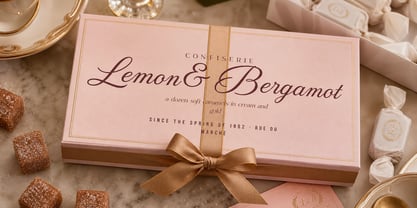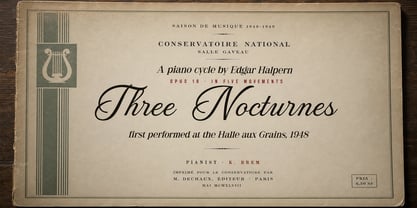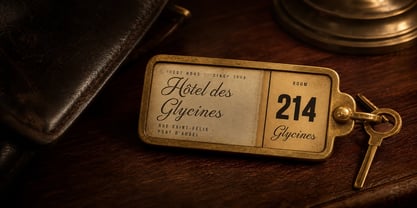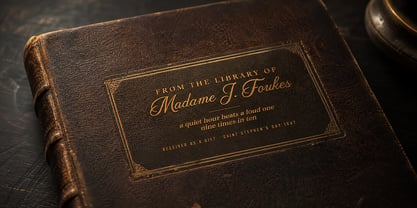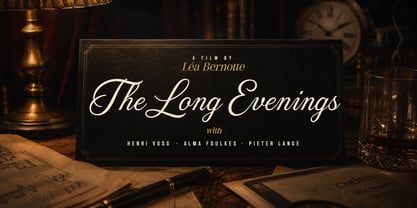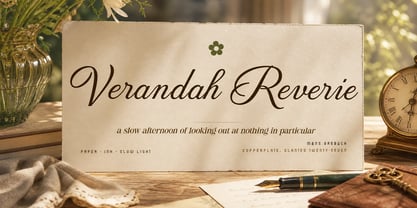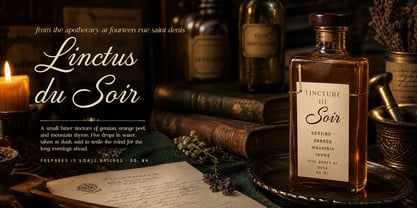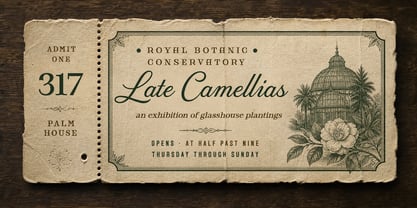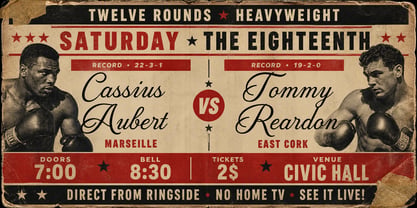
Verandah Reverie
by Mans Greback
Verandah Reverie is a flowing copperplate calligraphy script, set at a steep 27° slant.
The letterforms carry the unbroken cadence of a steel-nib hand — connected lowercase, fine entries, slightly extravagant capitals. The strokes vary in weight as a pen-on-paper hand would, with hairline upstrokes and confident shaded downstrokes. Set at large sizes it has the composed elegance of a hand-written invitation; set tighter it reads as careful correspondence rather than ornament.
The script feels at home on a perfume label, a notary's letterhead, the inside cover of a book given as a saint's-day gift, or the printed program of a small chamber recital — anywhere the writing wants to suggest attention paid and time taken.
The font is built with advanced functionality and guaranteed top-notch quality, containing stylistic and contextual alternates, ligatures and more automatic and manual features; all to give you full control and customizability.
It has extensive lingual support, covering all Latin-based languages, from North Europa to South Africa, from America to South-East Asia. It contains all characters and symbols you'll ever need, including all punctuation and numbers.
Designed and created by Mans Greback.
Designers: Måns Grebäck
Foundry: Mans Greback